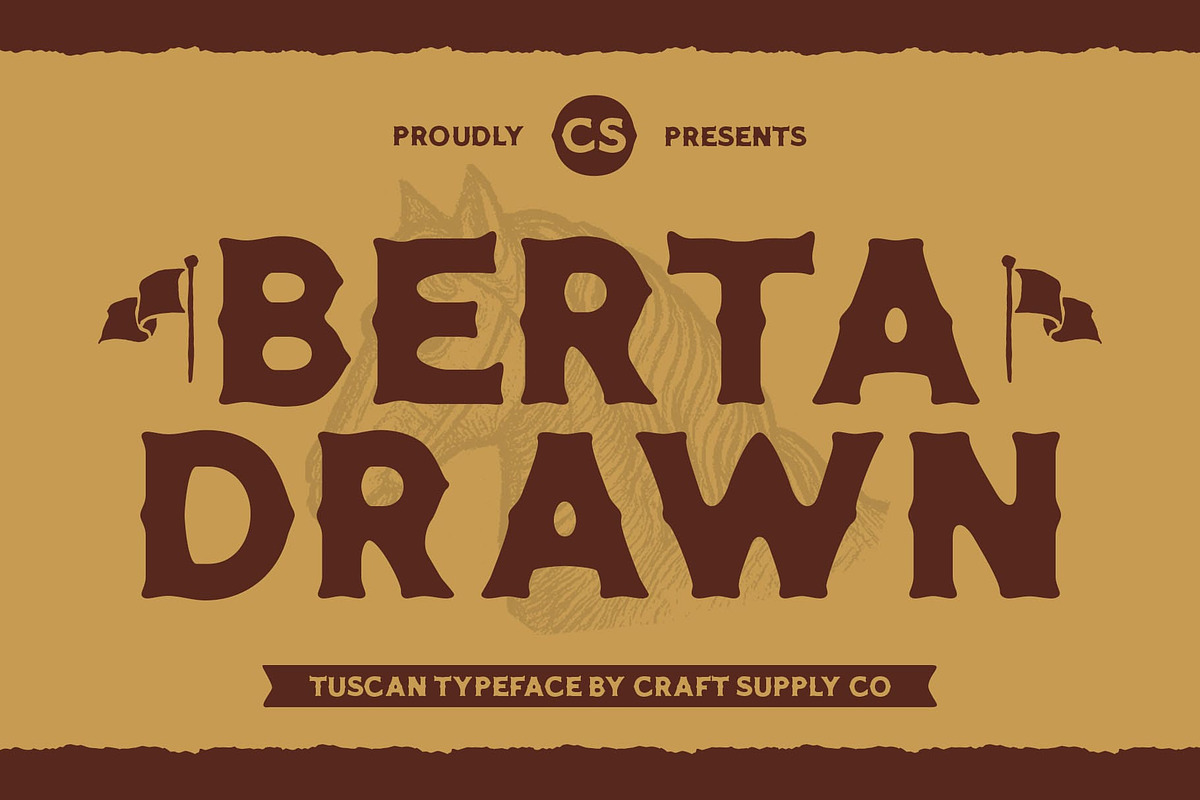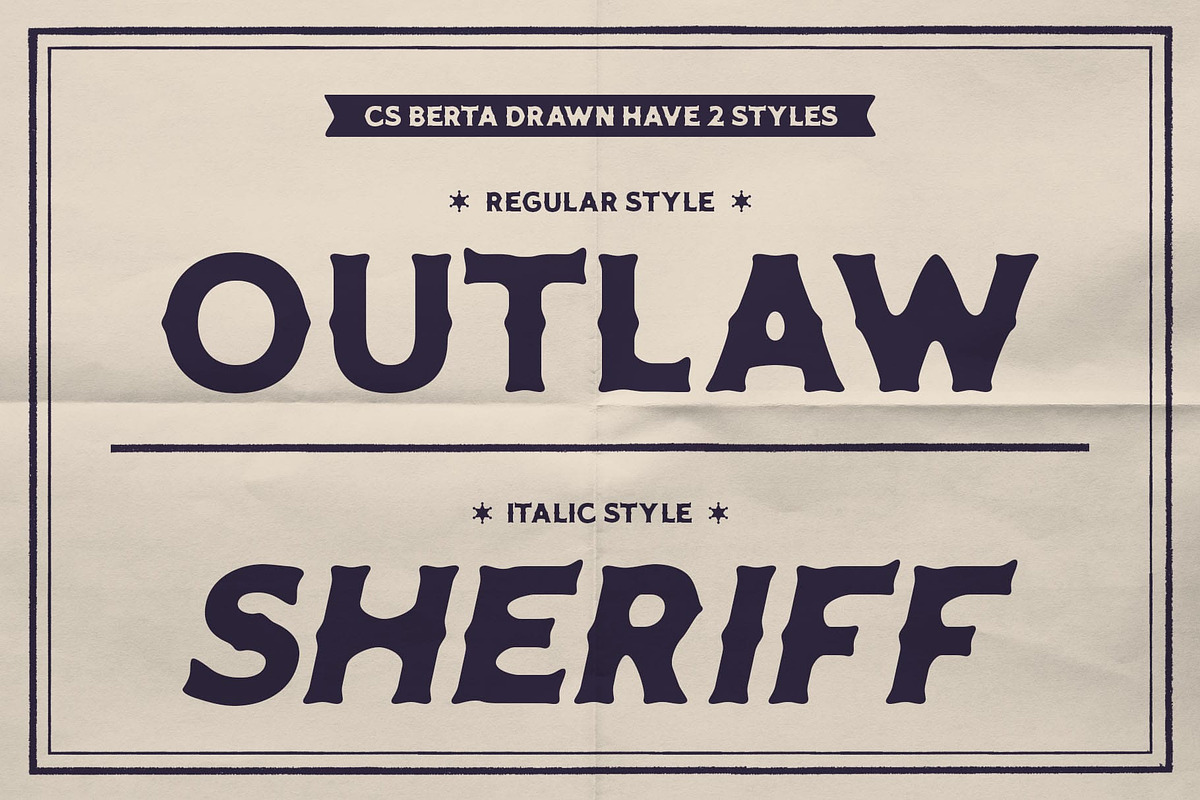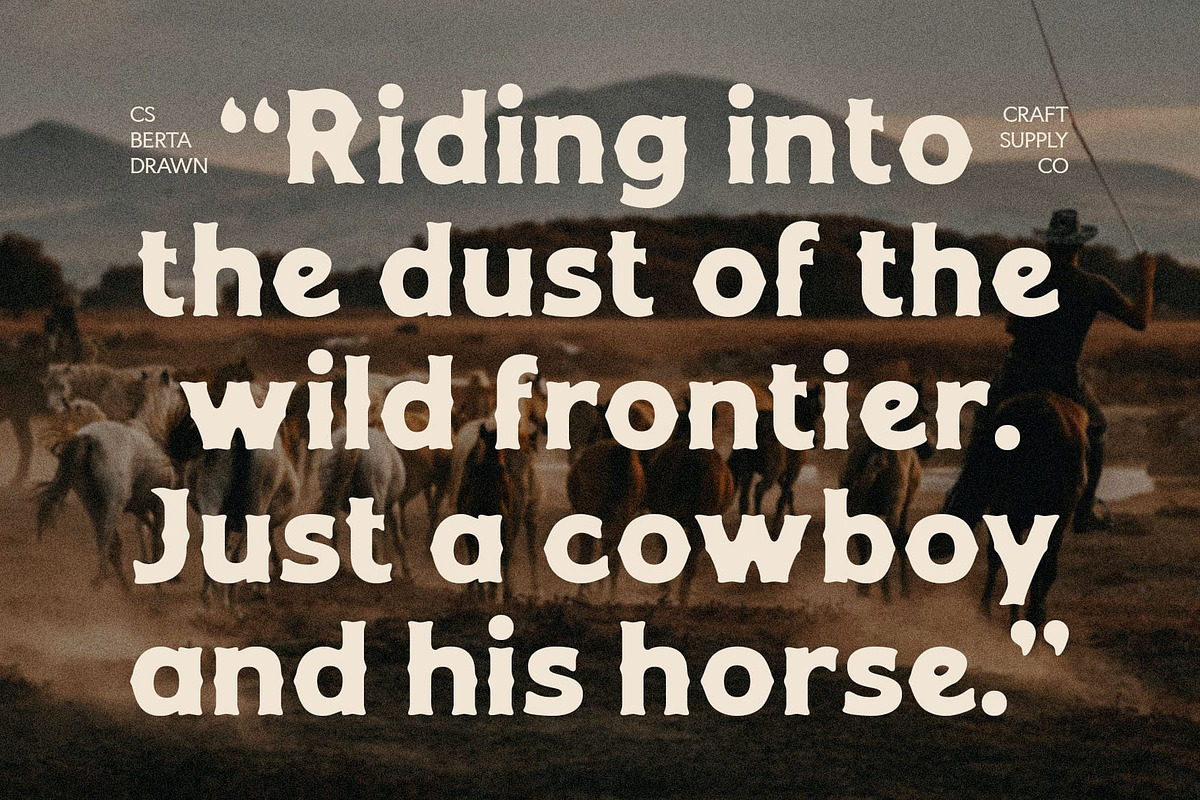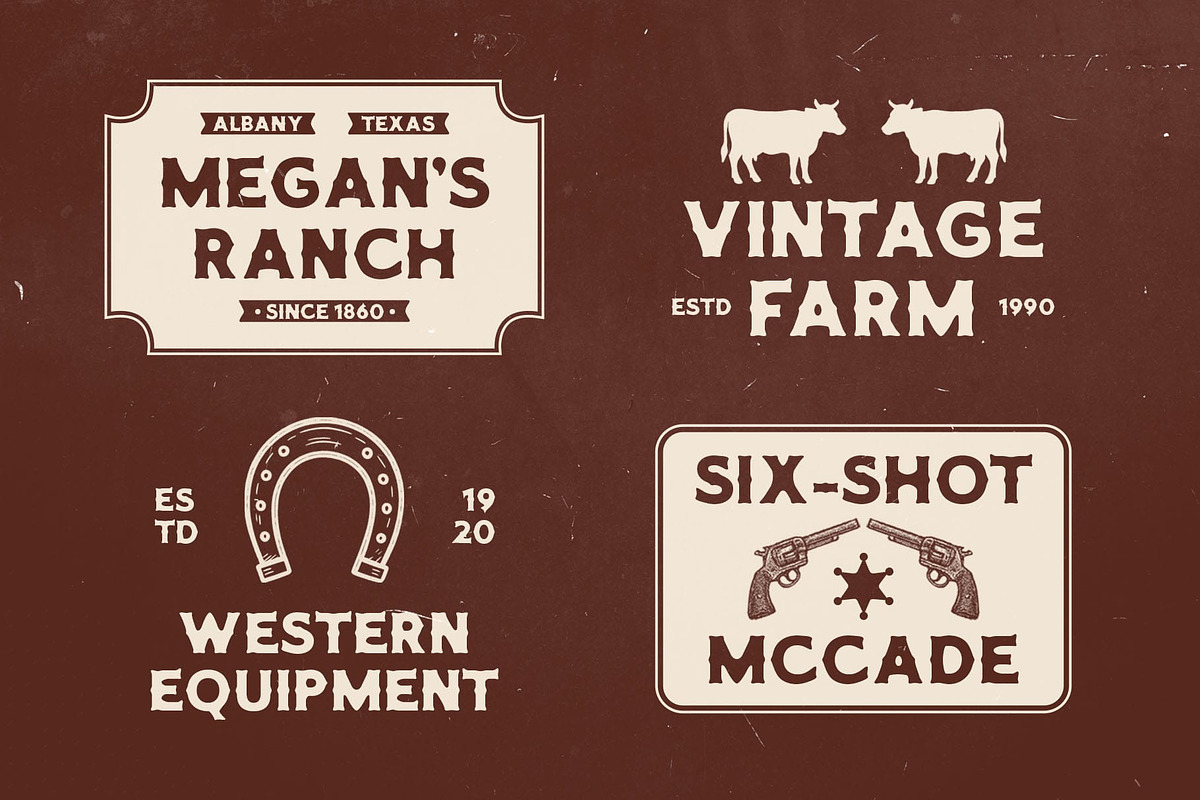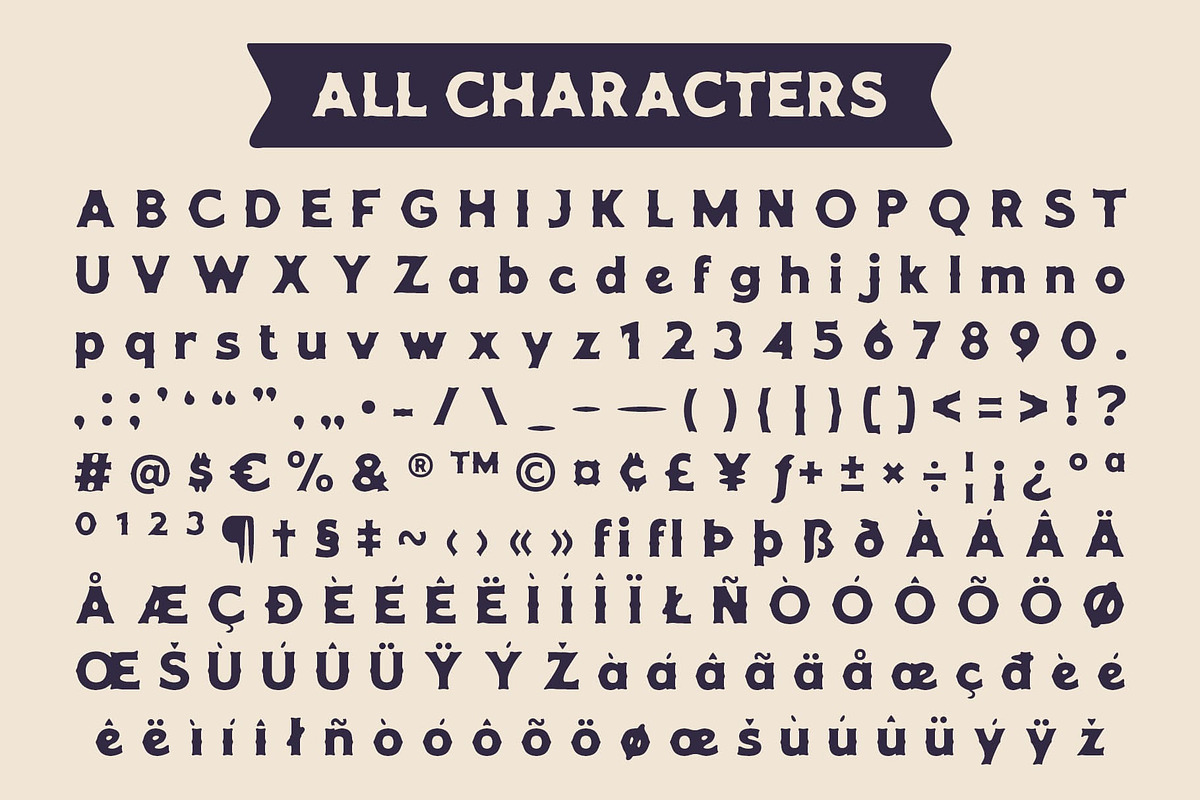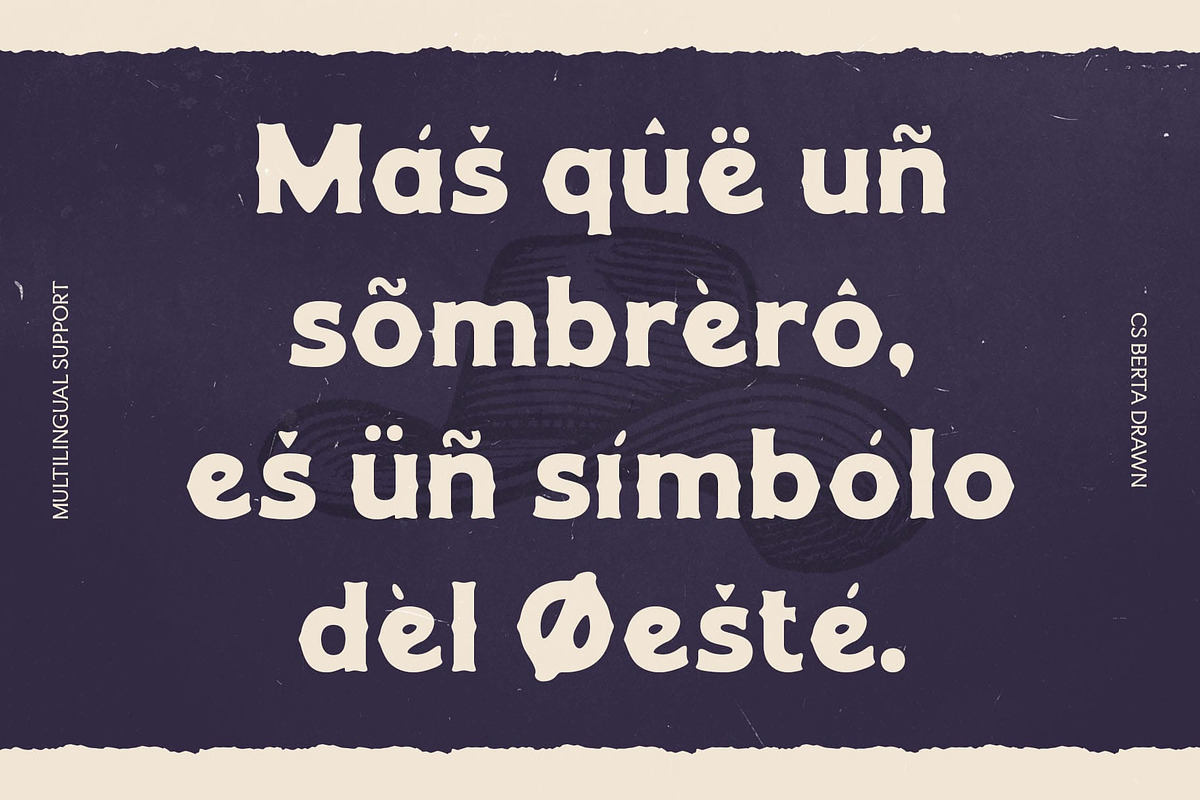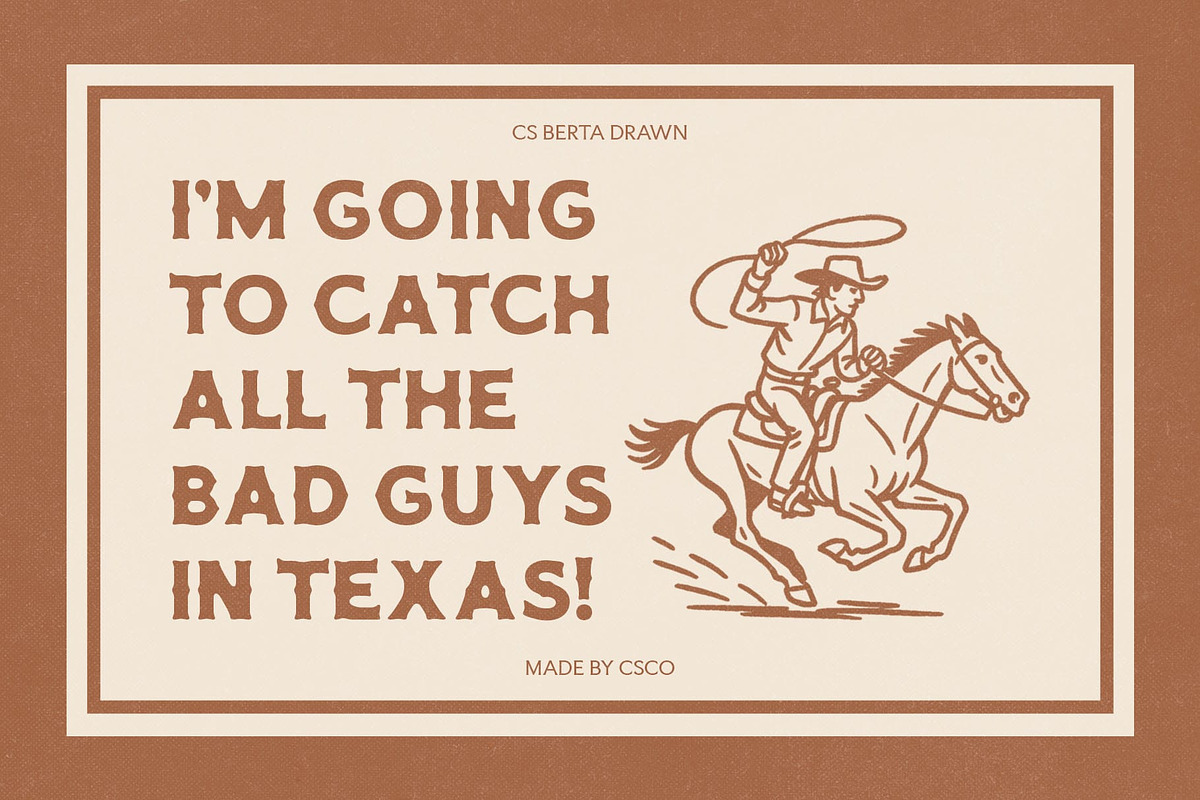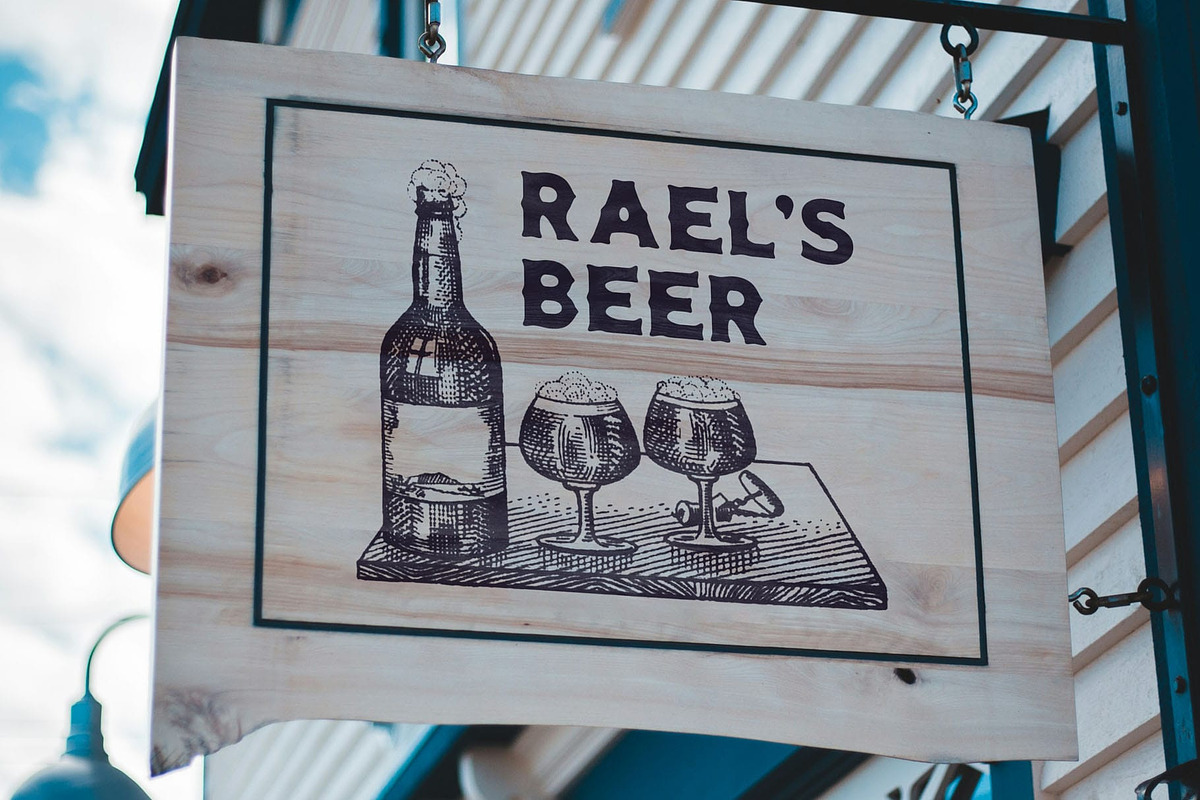
CS Berta Drawn
CS Berta Drawn – Bold Tuscan Serif with Vintage Handcrafted Charm
Striking Tuscan Style with Vintage Elegance This features the distinctive flair of Tuscan serifs—characterized by curved, bifurcated terminals that add ornamental charm and historical depth. Its classic display structure reflects vintage aesthetics while preserving strength and visual clarity.
Bold Form with Timeless Character The bold, well-balanced letterforms offer a commanding presence that stands out in both traditional and contemporary contexts. Whether used in logos, packaging, signage, or editorial headlines, its confident shape delivers instant impact with a refined, old-world tone that resonates with authenticity.
Drawn Effect for a Handcrafted Feel The drawn texture brings a warm, human touch to the bold display serif font base, enhancing its authenticity and artistic quality. This handcrafted detail elevates the font’s expressive value, giving it a personal and organic vibe.
Perfect for Vintage-Inspired and Expressive Design Ideal for projects that seek to capture a nostalgic spirit with a unique twist, this classic font fits perfectly into vintage-themed posters, artisanal branding, product labels, and editorial titles. Its Tuscan elegance, bold stature, and handcrafted character make it a timeless choice for storytelling through design.
- CS Berta Drawn Regular
- CS Berta Drawn Italic